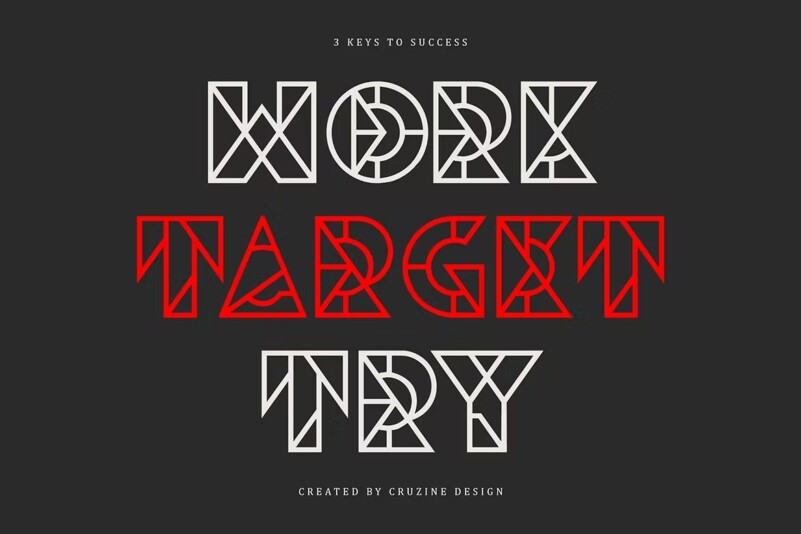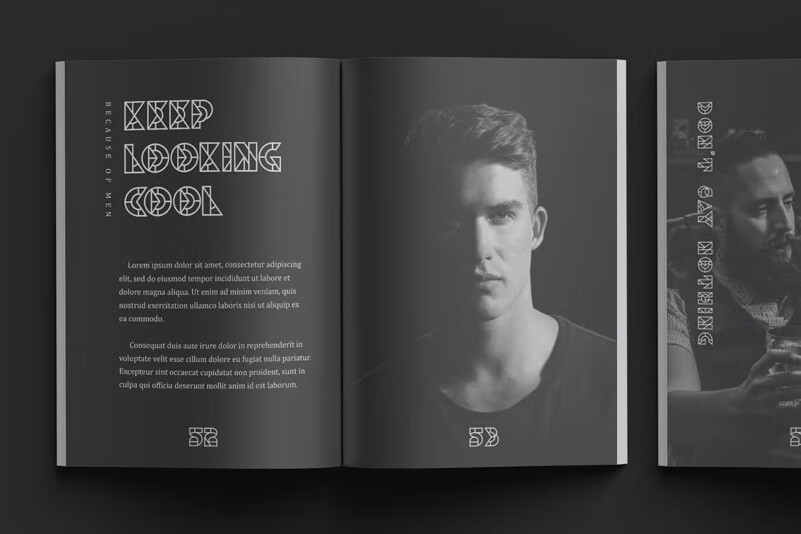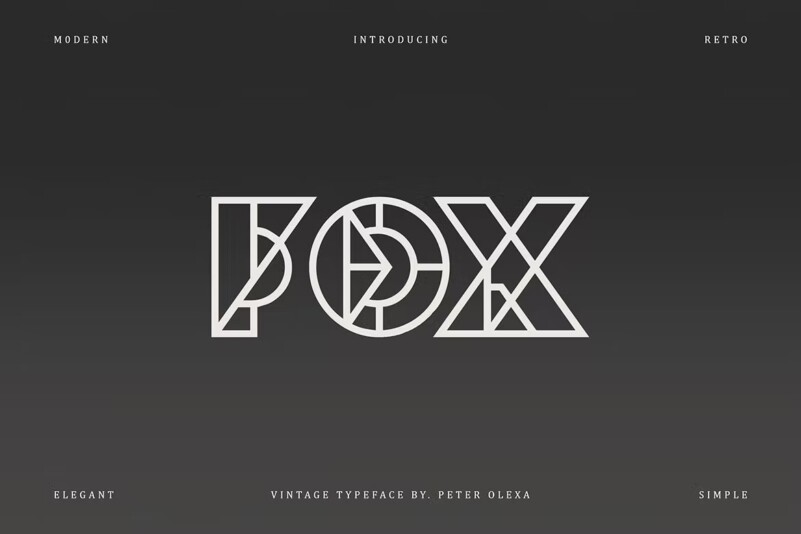
Fox Geometric Font
Creative, modern, sharp, unique and decorative font for your new projects. With a cool linear or geometric style. Ideal for neon or futuristic projects.